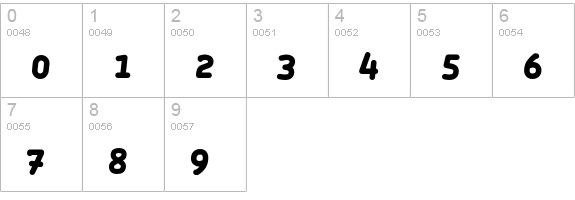
Roice-BlackItalicSC Font Details
Roice-BlackItalicSC is a stunning and elegant font that exudes sophistication and style. Its sleek and modern design makes it perfect for a variety of design projects, from branding to editorial design. The italicized style adds a touch of flair and class to any text, making it stand out from the crowd. What's even better is that Roice-BlackItalicSC is available for free download at FontsMarket.com. This means that you can easily incorporate this beautiful font into your projects without breaking the bank. Don't miss out on the opportunity to elevate your designs with Roice-BlackItalicSC – download it for free today!